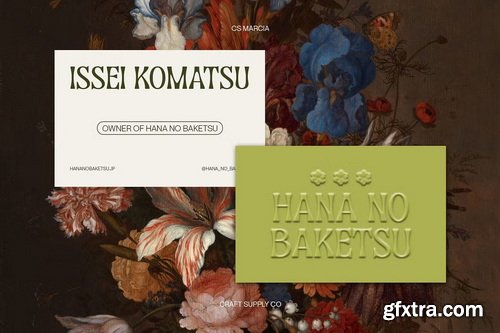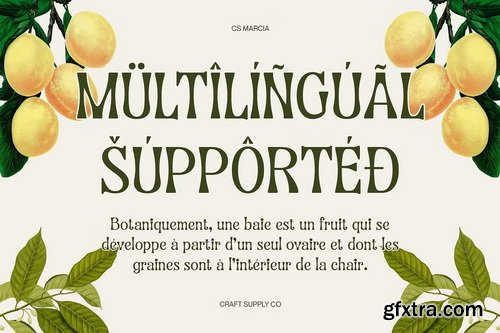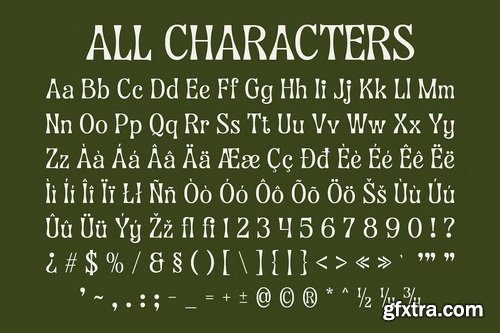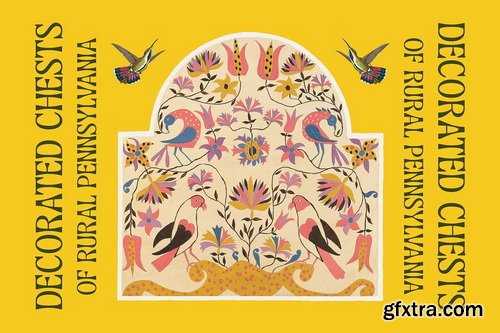
Modern Classic Display Serif CS Marcia is a modern classic display serif font that radiates aesthetic beauty with a touch of refinement and sophistication. Designed with clean lines, balanced letterforms, and harmonious proportions, this font seamlessly blends timeless elegance with contemporary style, making it a versatile choice for high-end design projects. Graceful and Luxurious Appeal Featuring delicate strokes and a refined structure, CS Marcia embodies a luxurious and feminine aesthetic. Its subtle contrast and smooth curves create a sense of grace and exclusivity, ensuring that any design using this font stands out with a polished and high-class feel.